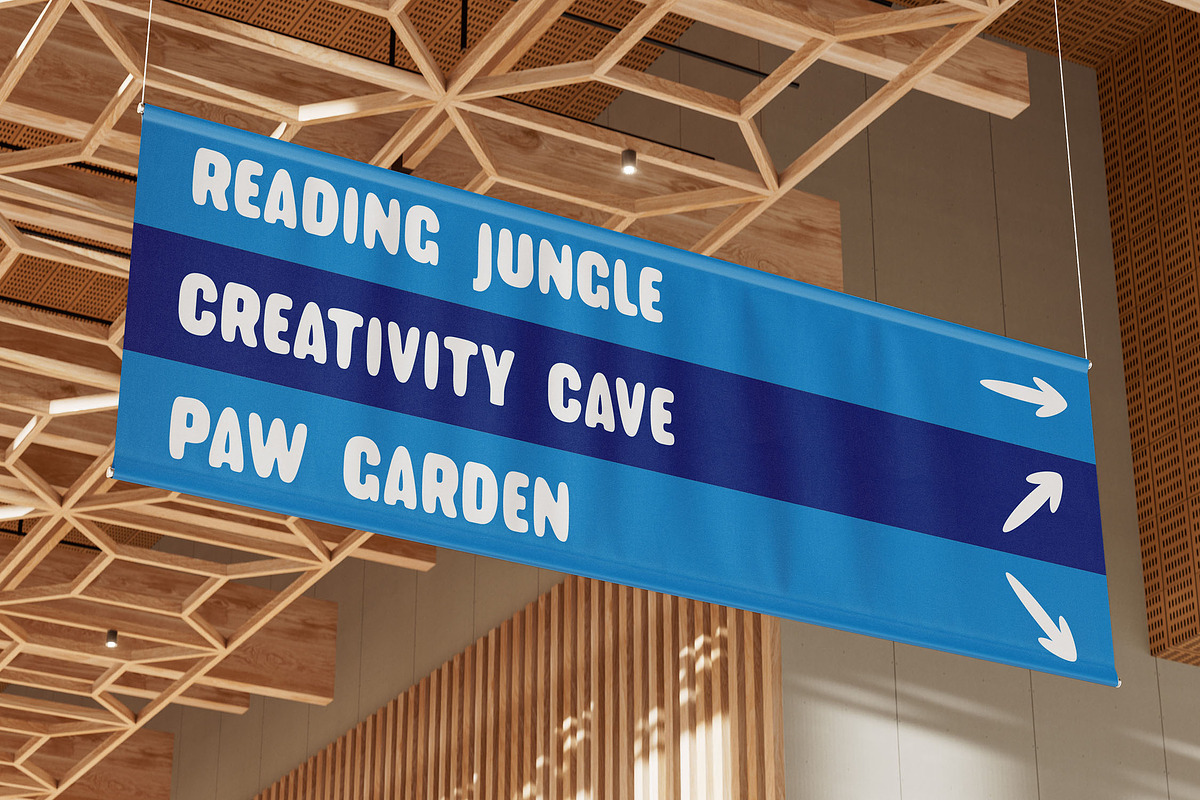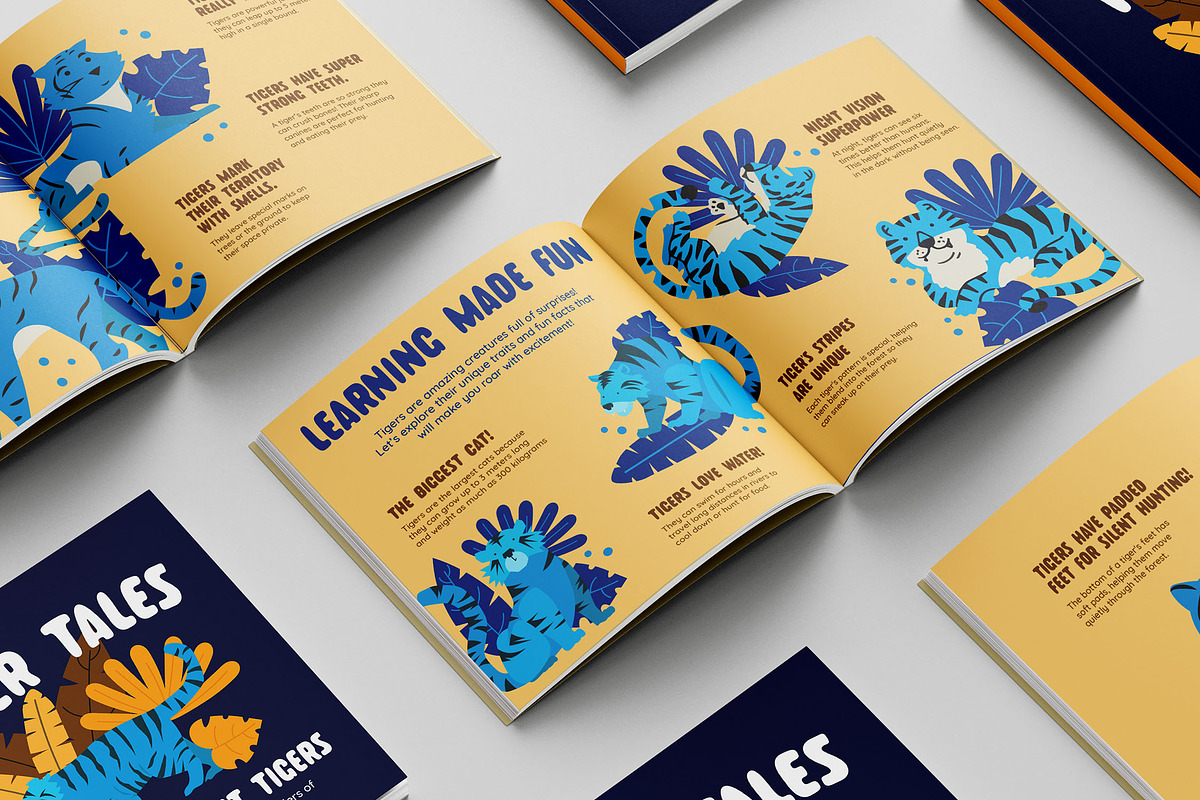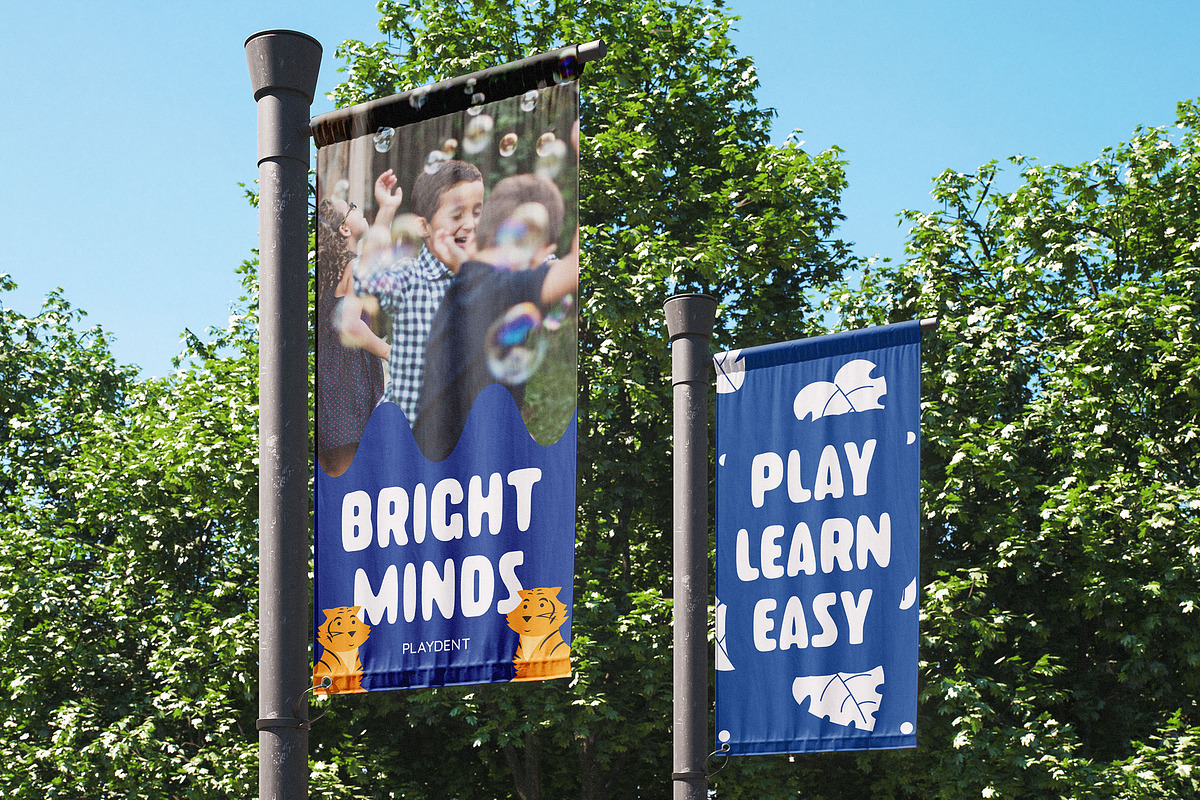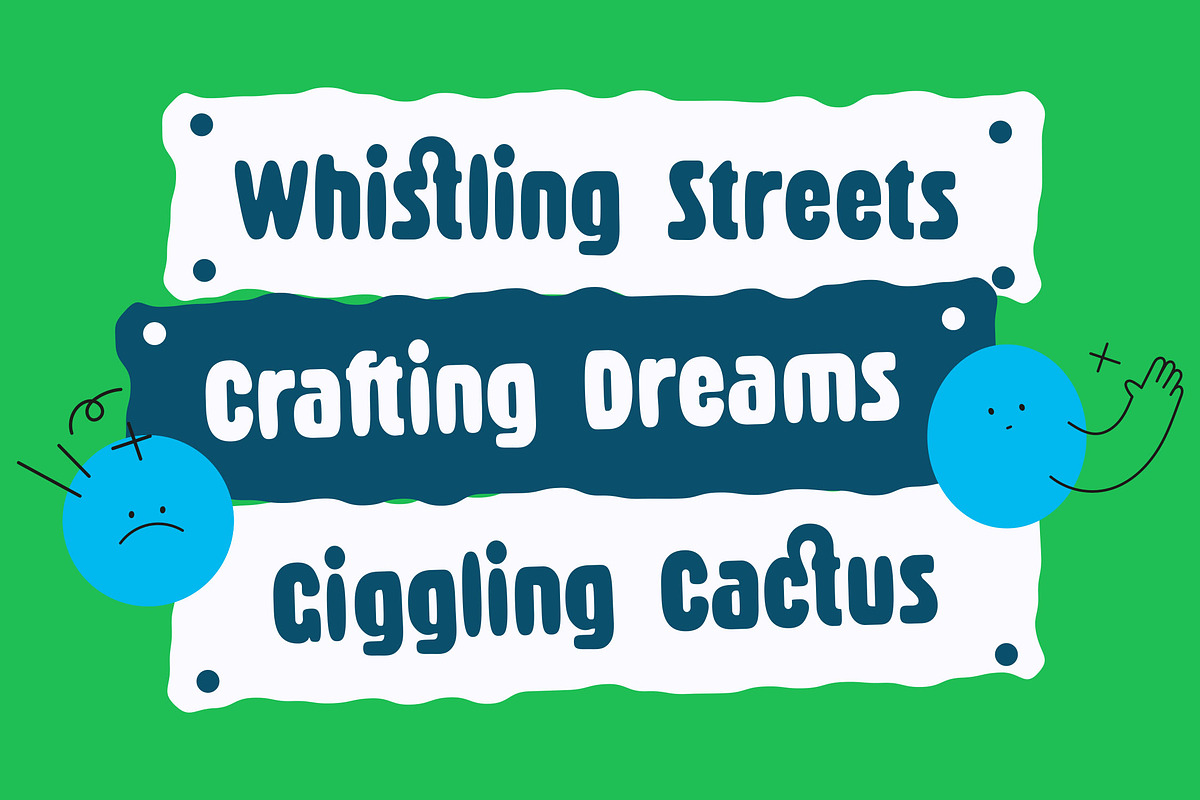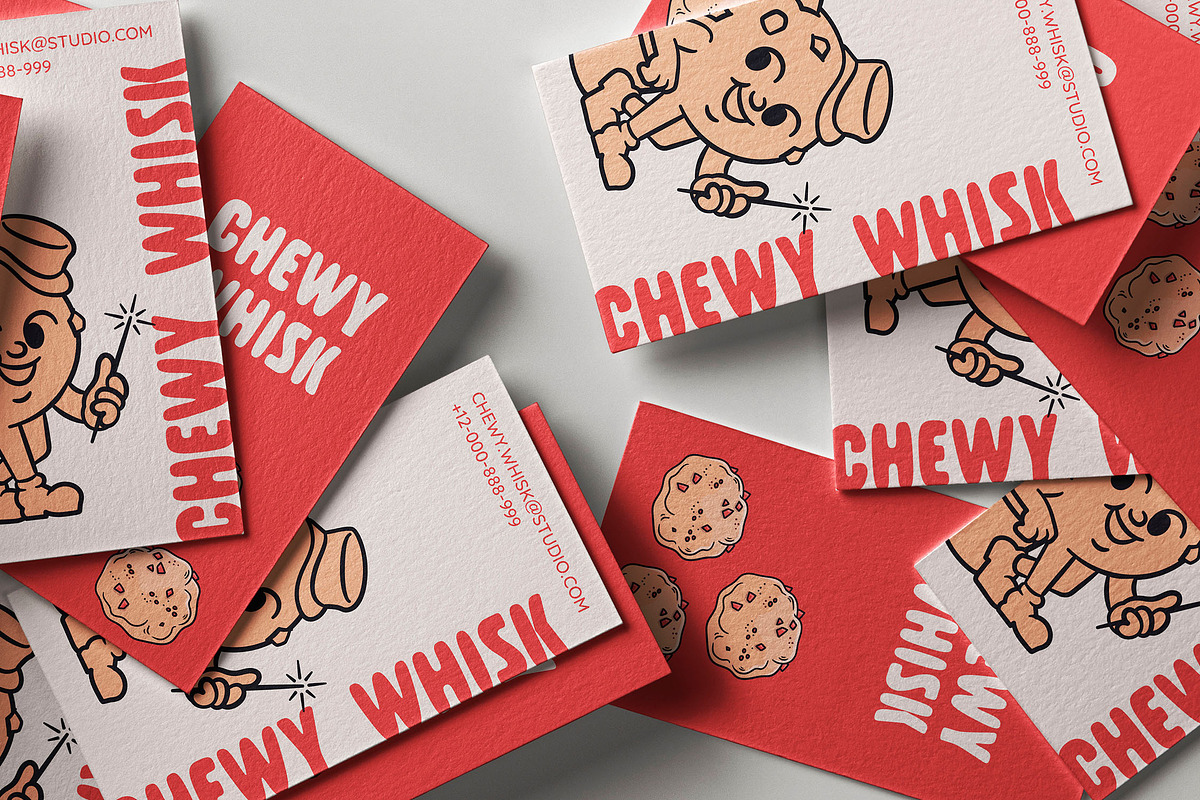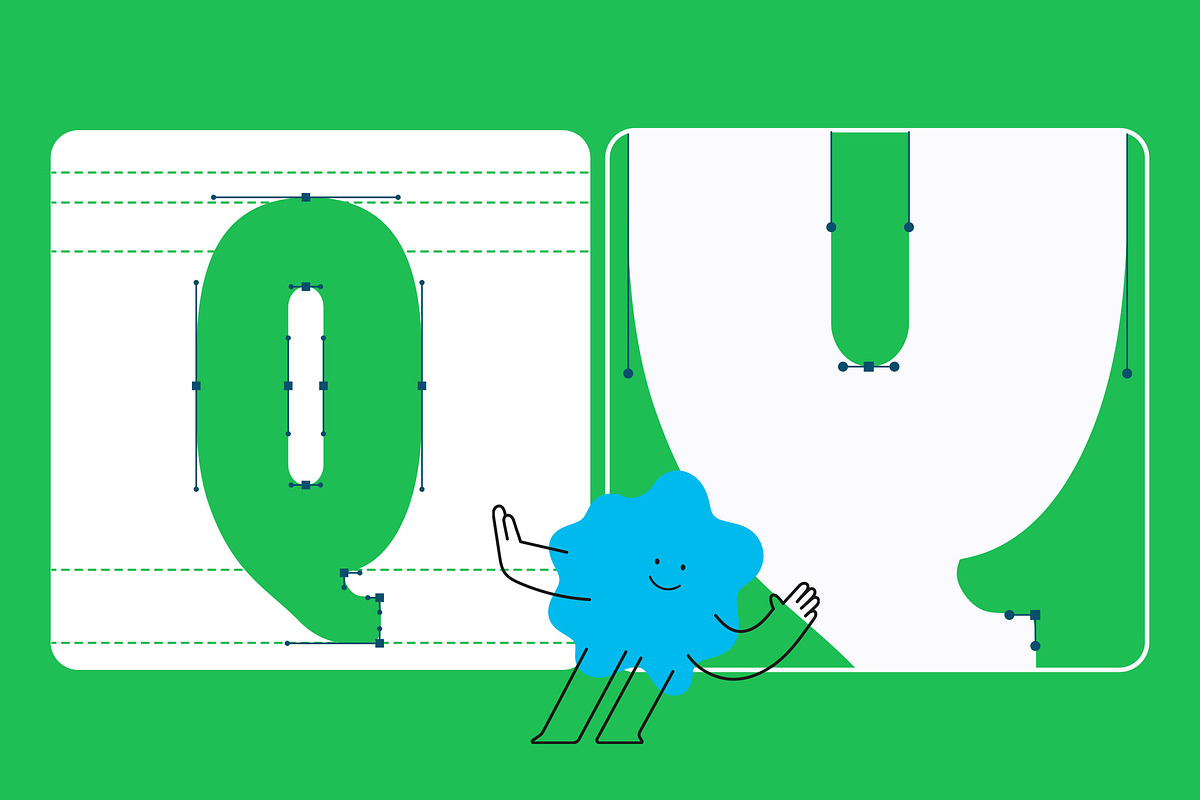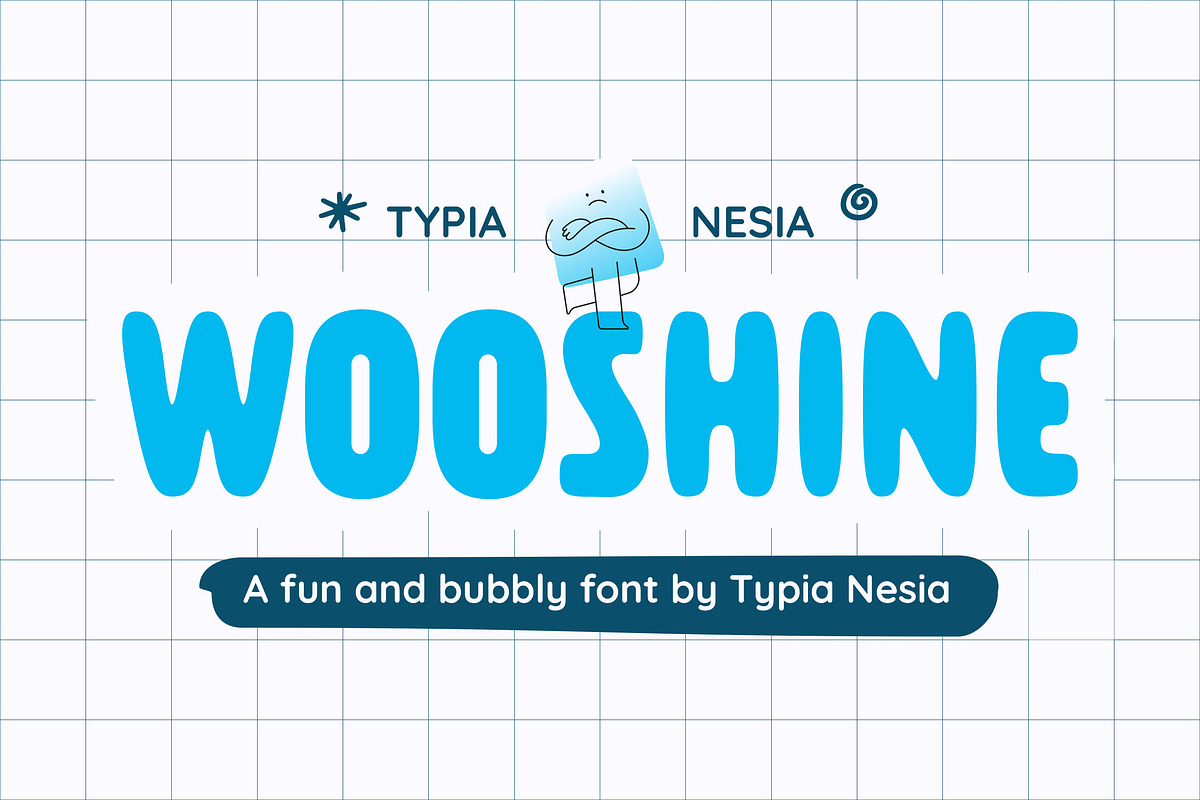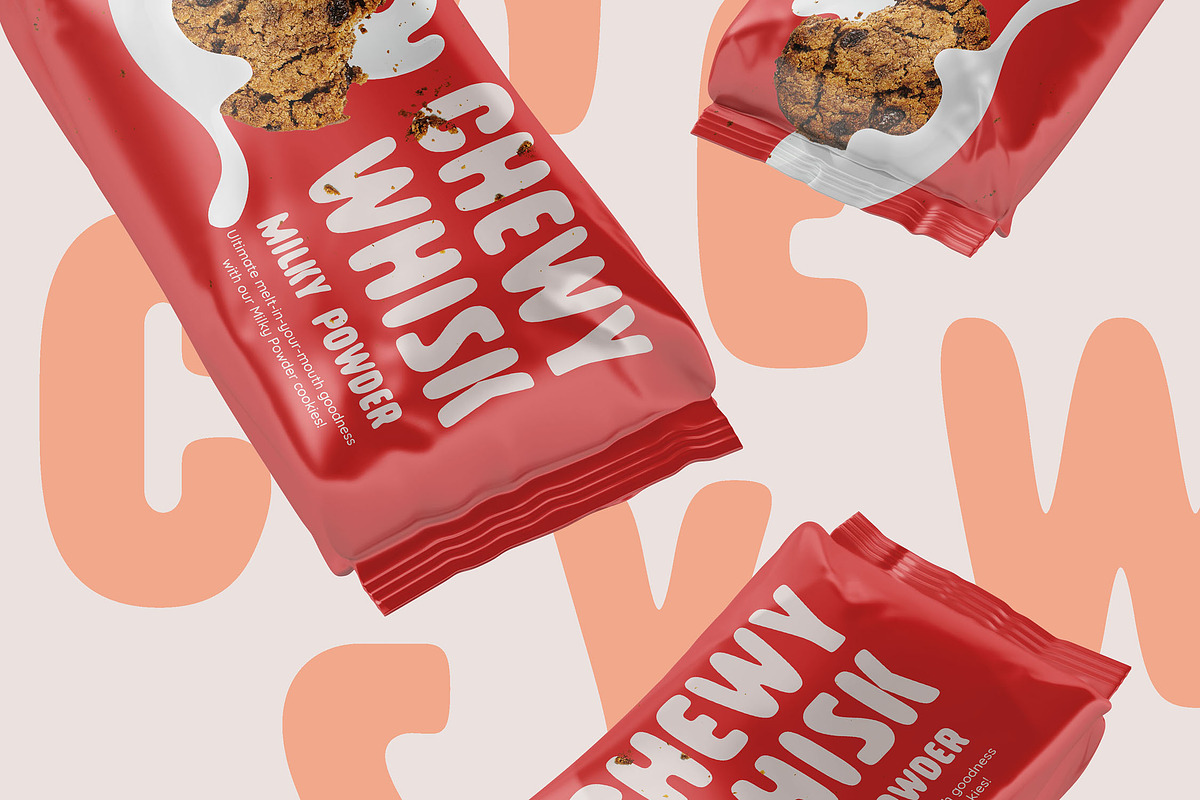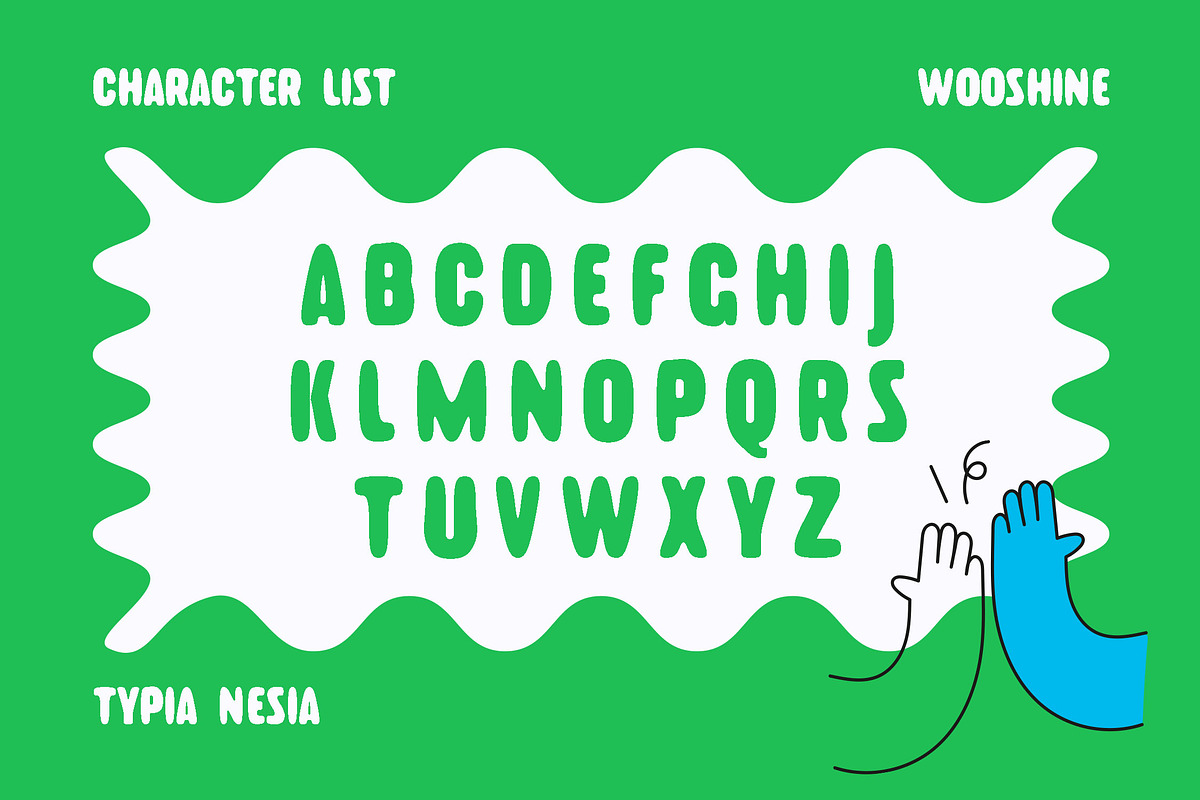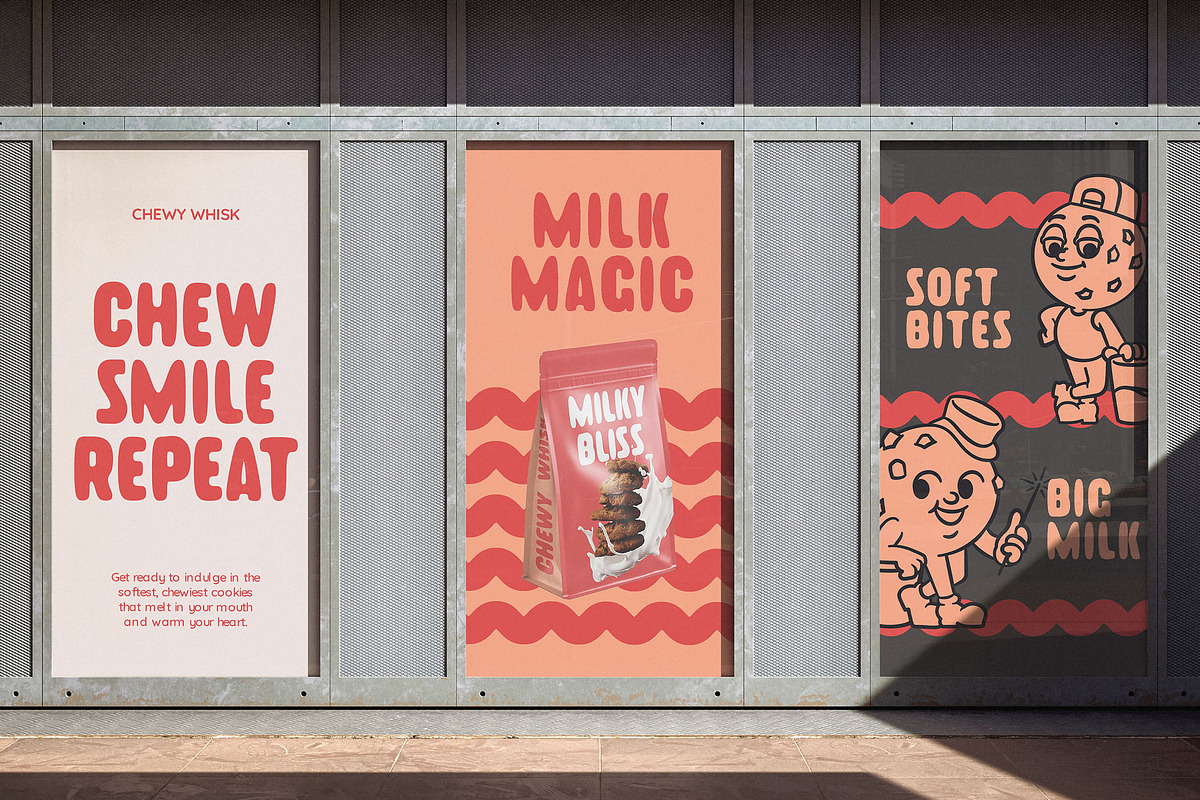
Wooshine - Fun & Bubble Sans Serif
Wooshine - Fun & Bubble Sans Serif Font - Modern Playful Condensed Cartoon Display Font.
Wooshine is a fun and bubble sans serif font designed to bring a playful and energetic vibe to your designs. Its rounded, bubbly shapes and compact style make it perfect for adding a cheerful, vibrant touch to any creative project, such as children's books, party invitations, playful branding, packaging, posters, social media graphics, cartoon, animation and anymore. Whether you’re designing for a youthful audience or creating lighthearted visuals, Wooshine adds charm and personality to your work. Comes with a full set of uppercase and lowercase characters, punctuation, numerals, and a variety of ligatures and alternates for creative versatility. With multilingual support, Wooshine ensures your designs can connect with audiences around the world.